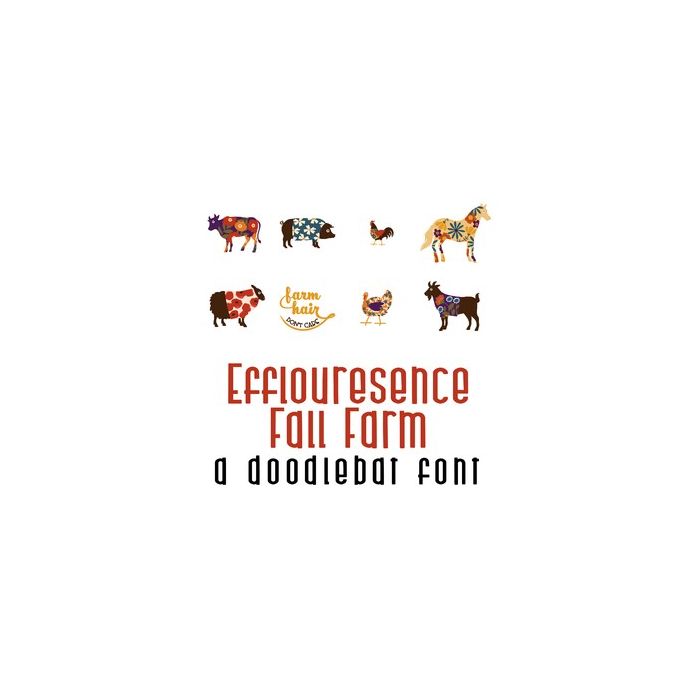
This adorable full-color doodlebat font features fall perfect farm animals wearing beautiful autumn florals. Perfect for cards, crafts, gifts, decor, scrapbook pages, planner stickers, and more!